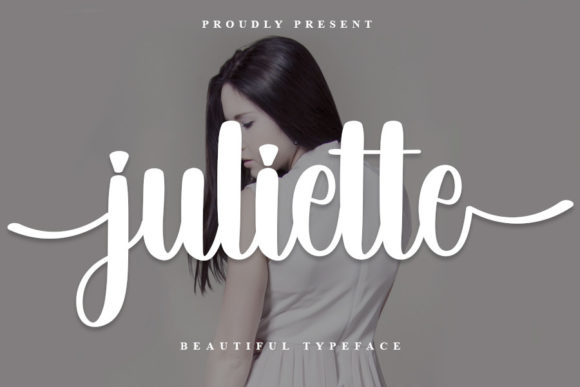
Juliette Font
About Juliette Font
Juliette is a gorgeous and bold handwritten font. It reads as confident and dynamic and can add tons of nostalgic character to your designs. This font is PUA encoded which means you can access all of the amazing glyphs and ligatures with ease!